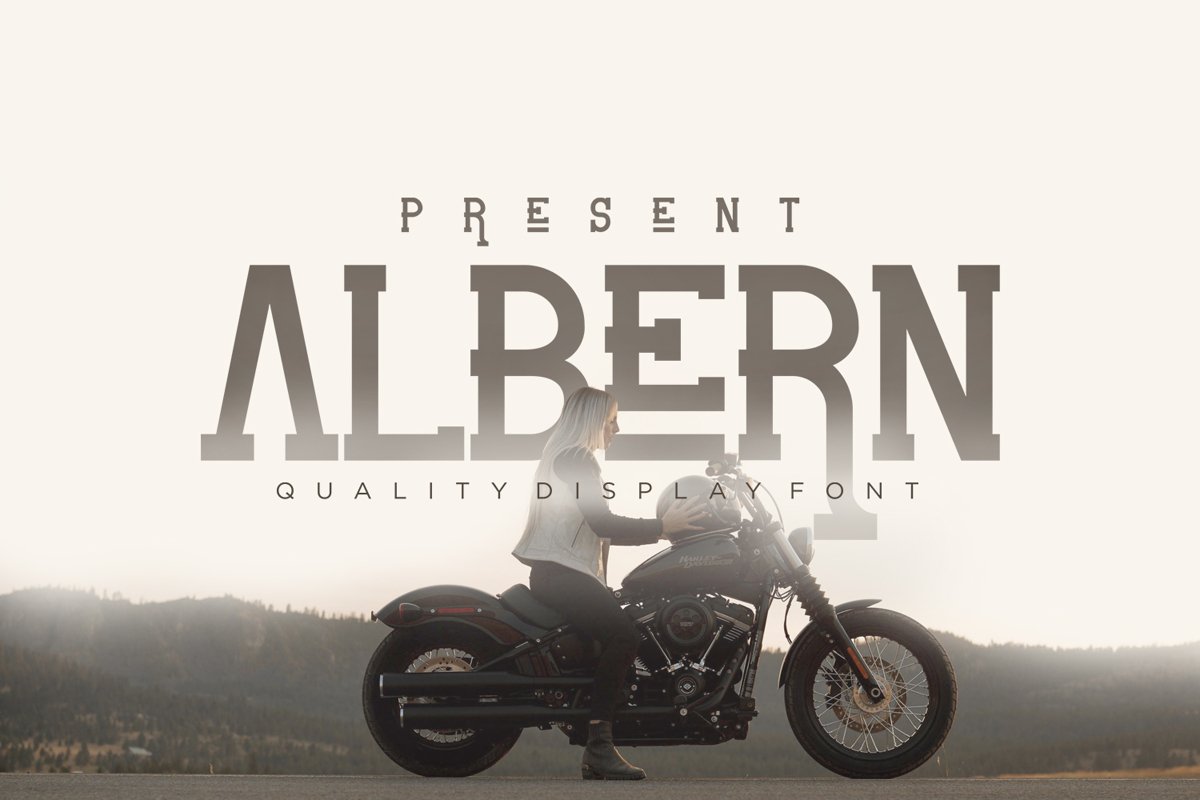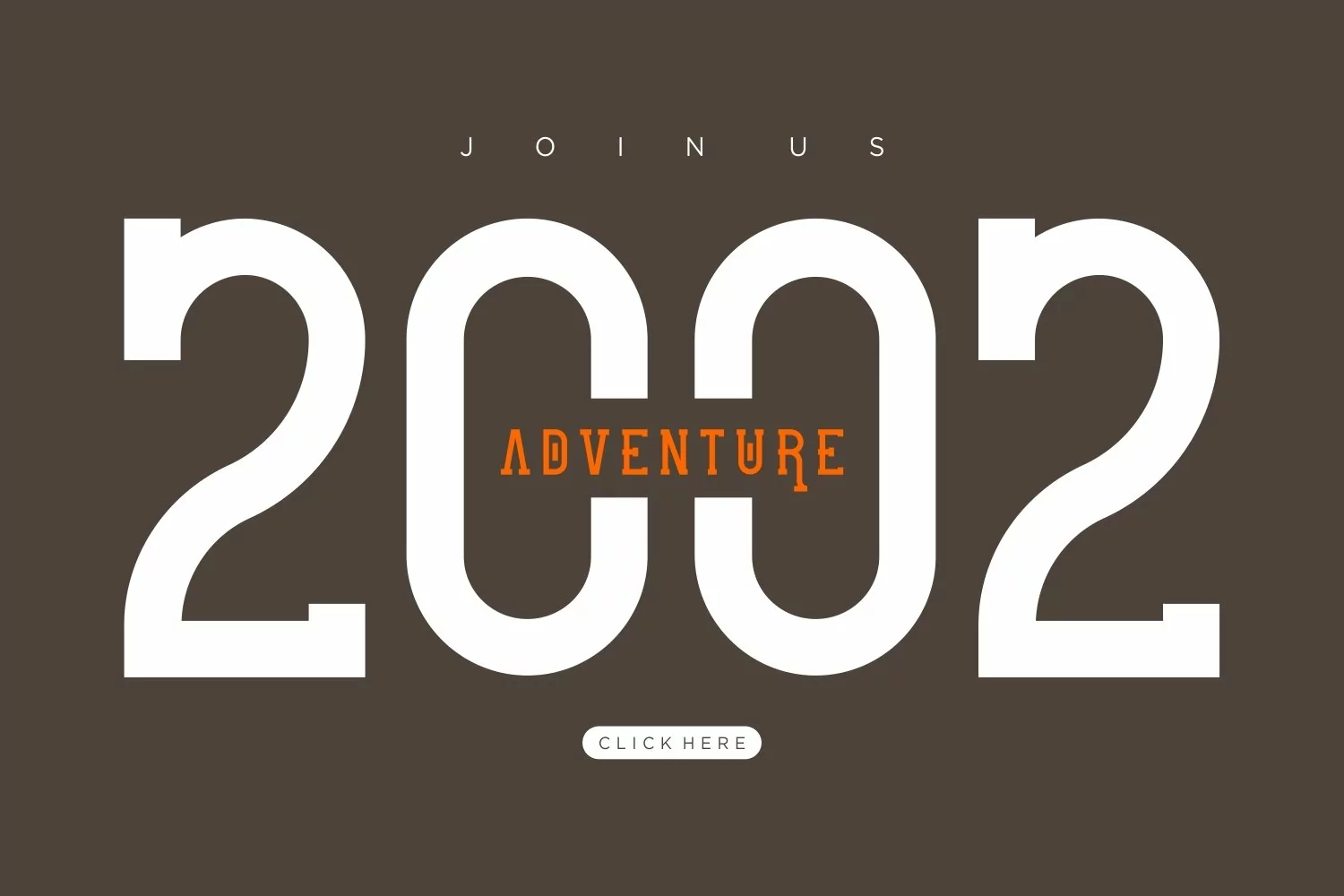
Albern is an authentic slab serif display come with adventure themes. This font have simple and clean shape characters. It matches applies in some designs such as the logotype, brand, packaging, quotes, poster, t-shirt, badge and more custom design. The features uppercase, lowercase, numeral, punctuation & symbol, multilingual support.